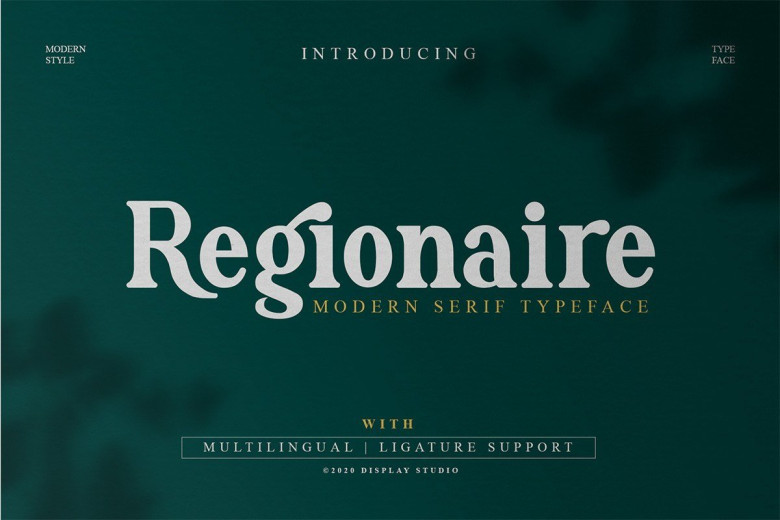
Regionaire Modern Serif Typeface
Regionaire Modern Serif Typeface is an elegant serif font design to create titles & headlines that instantly grabs attention. Regionaire performs well for mid-length text and it’s the perfect choice for headlines, titles to impact your readers.